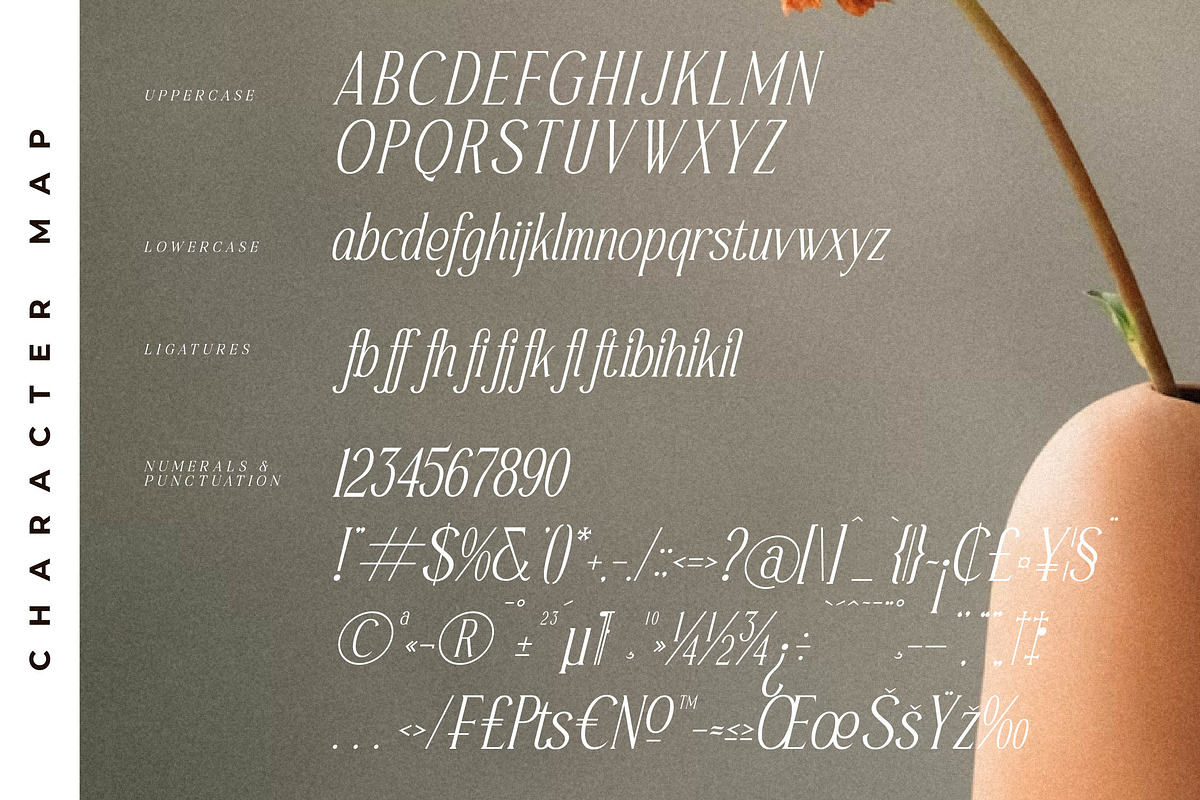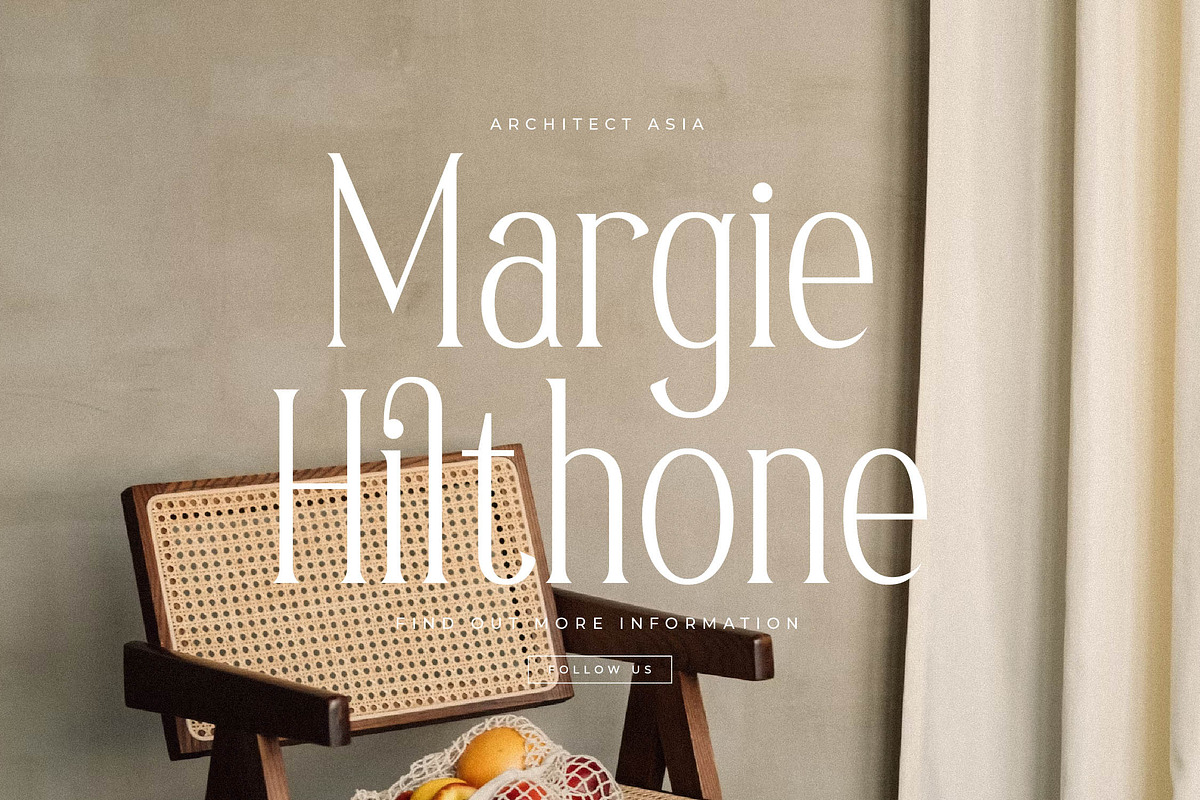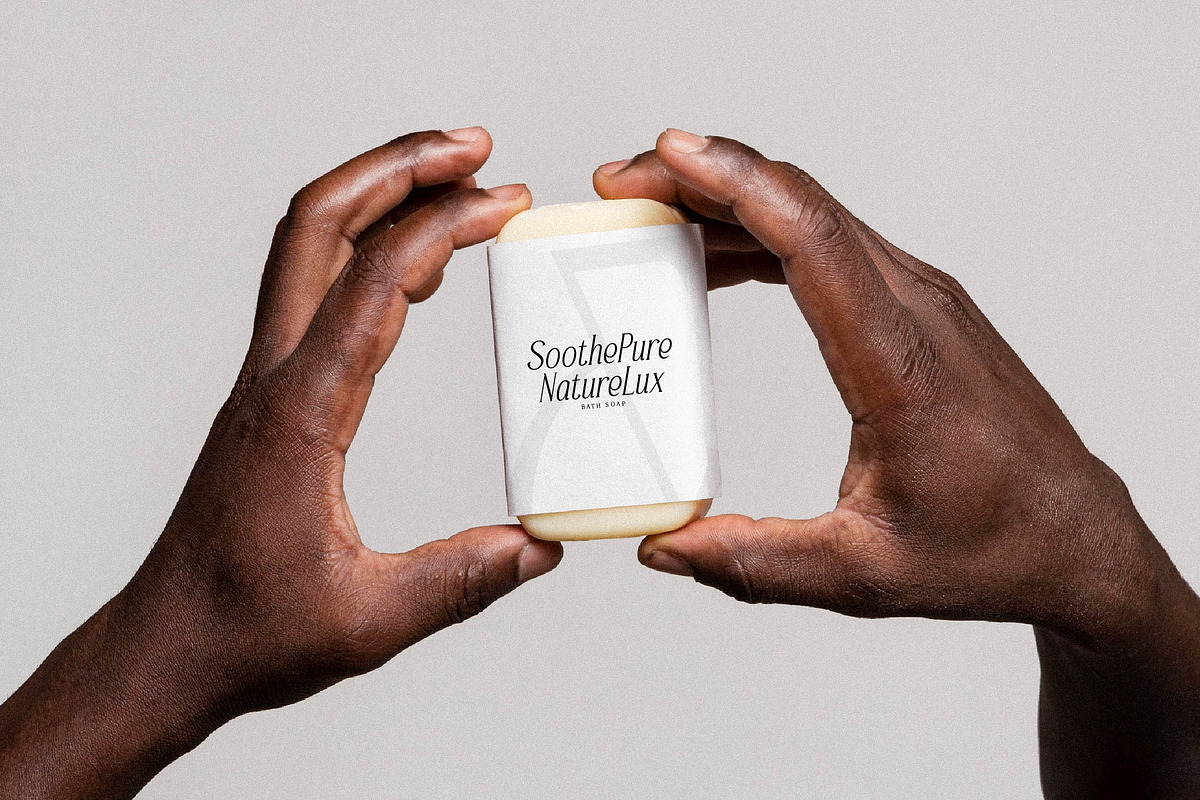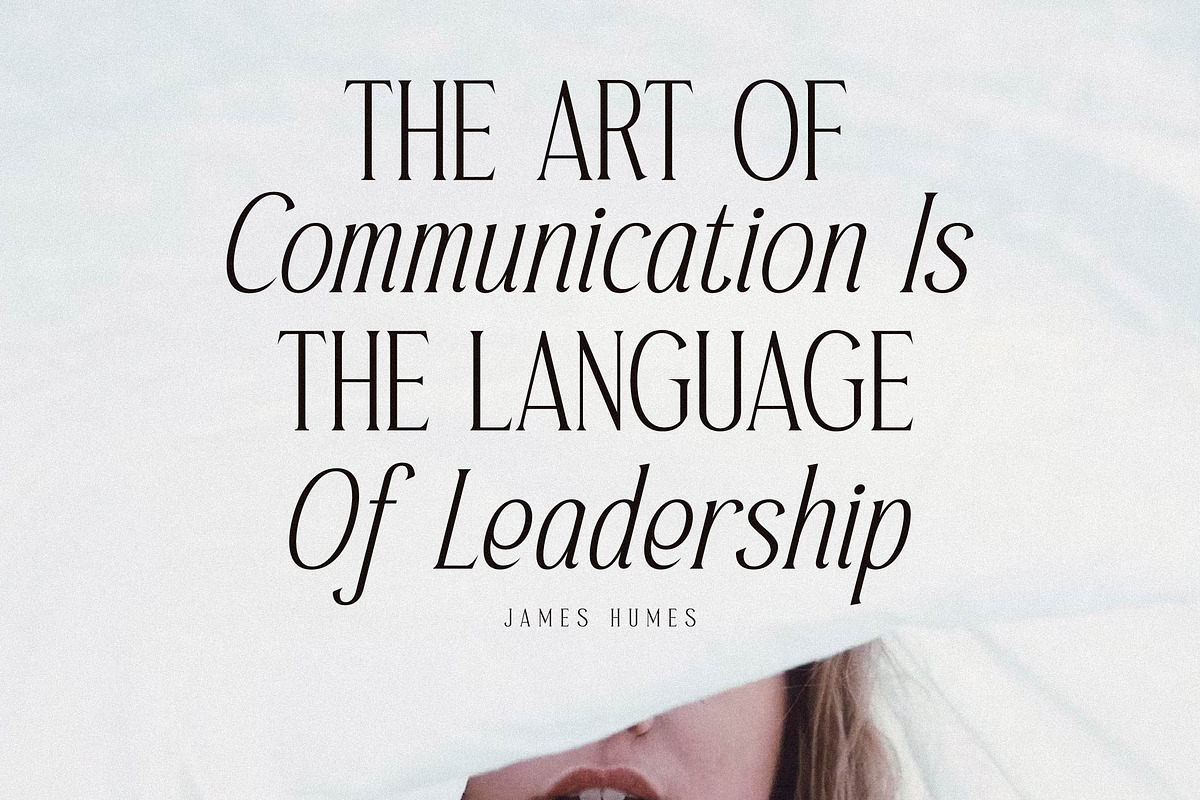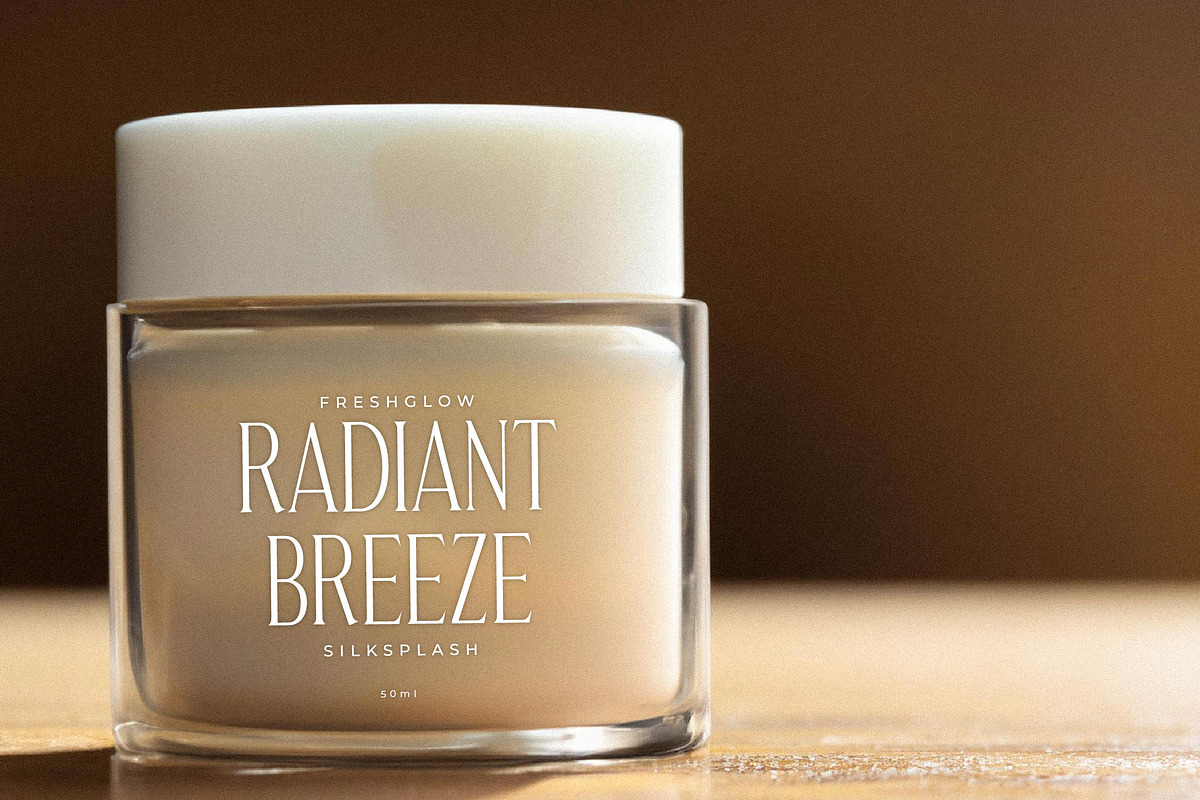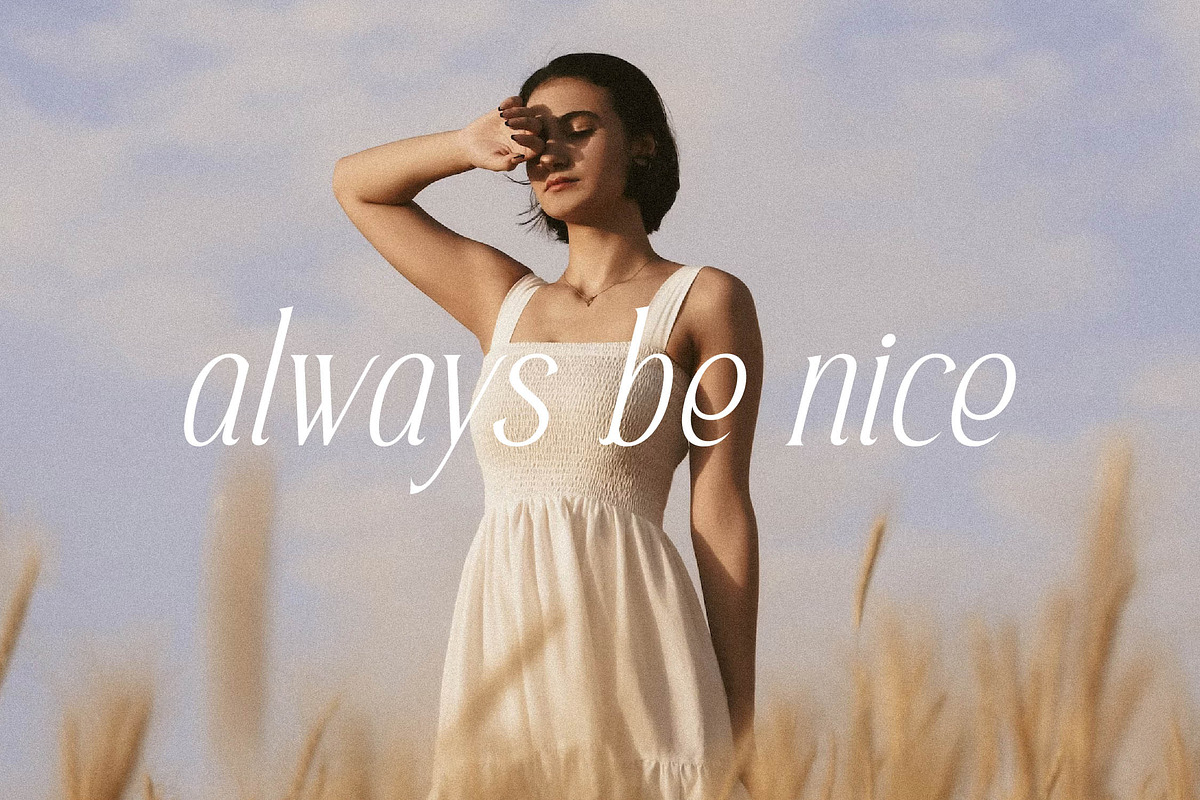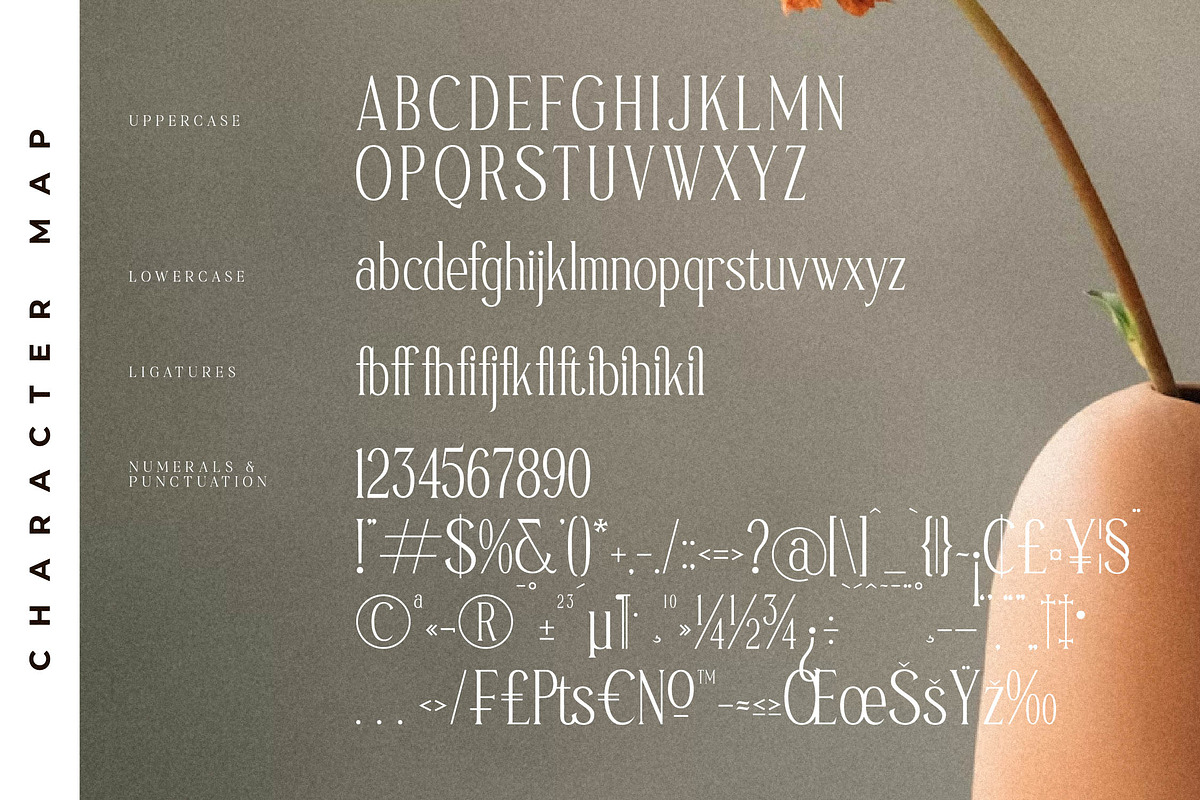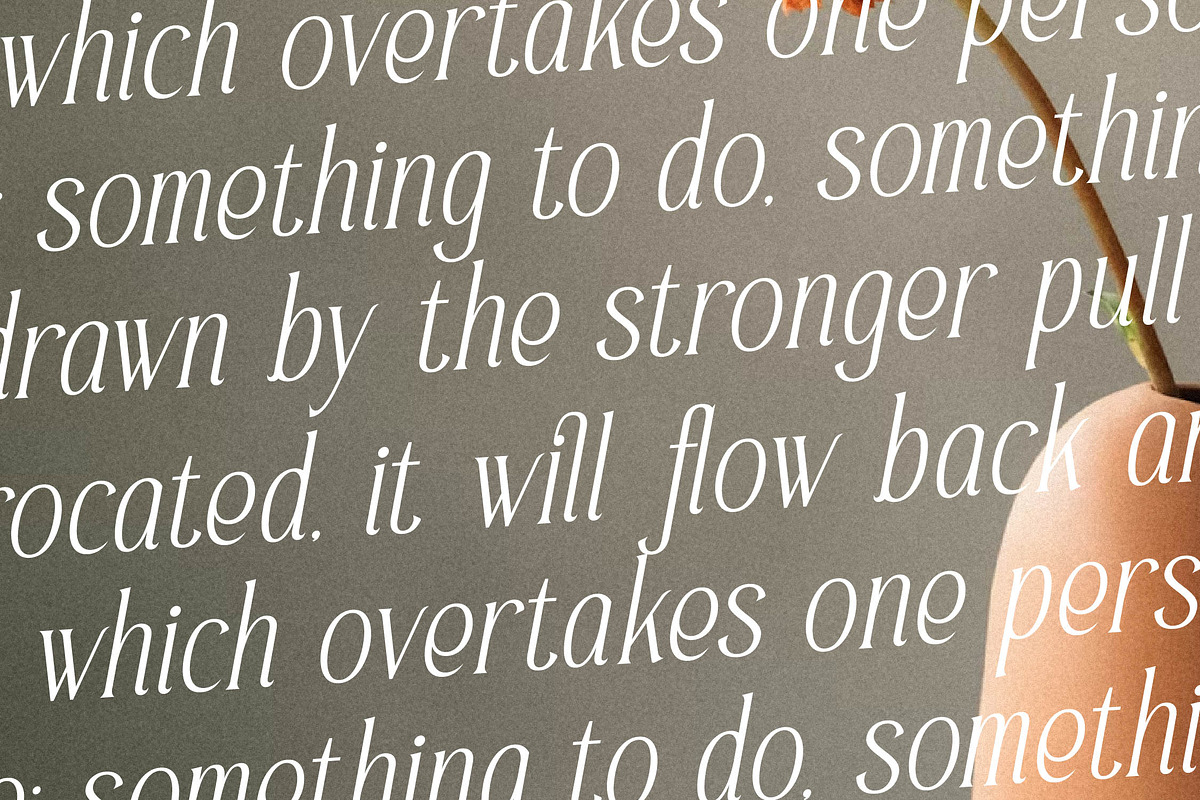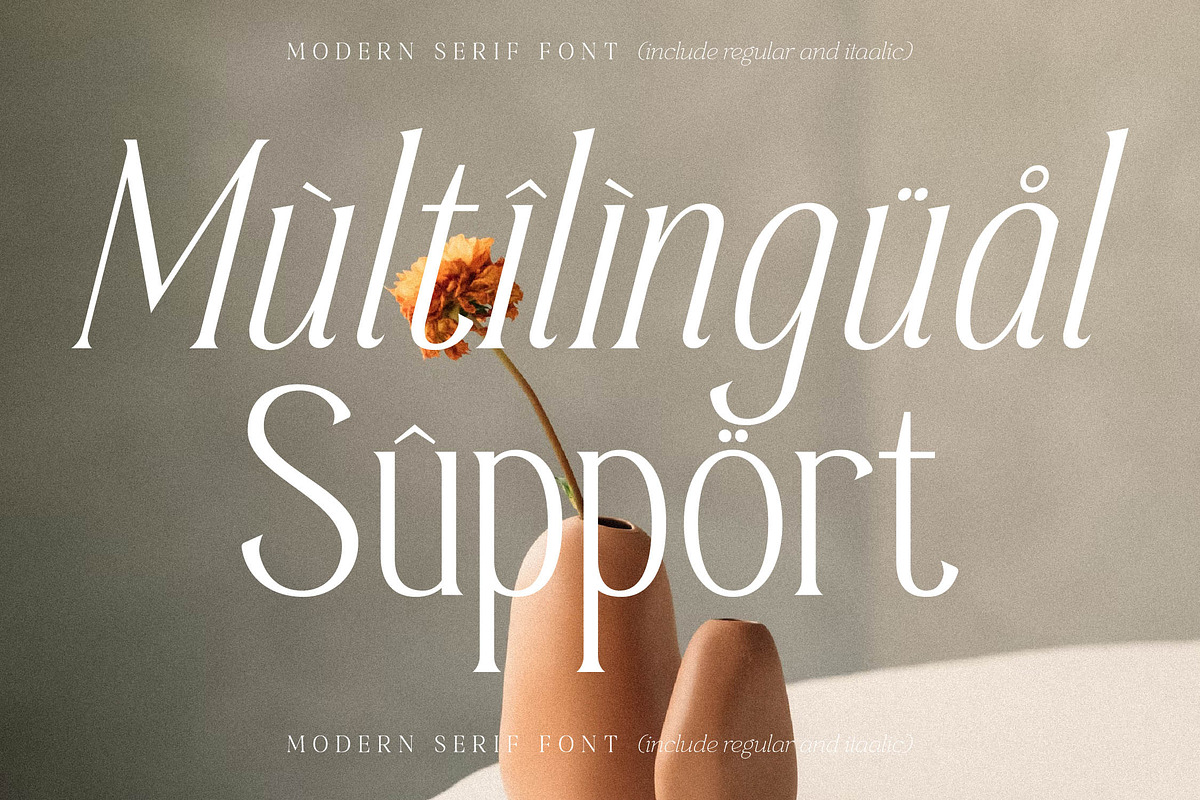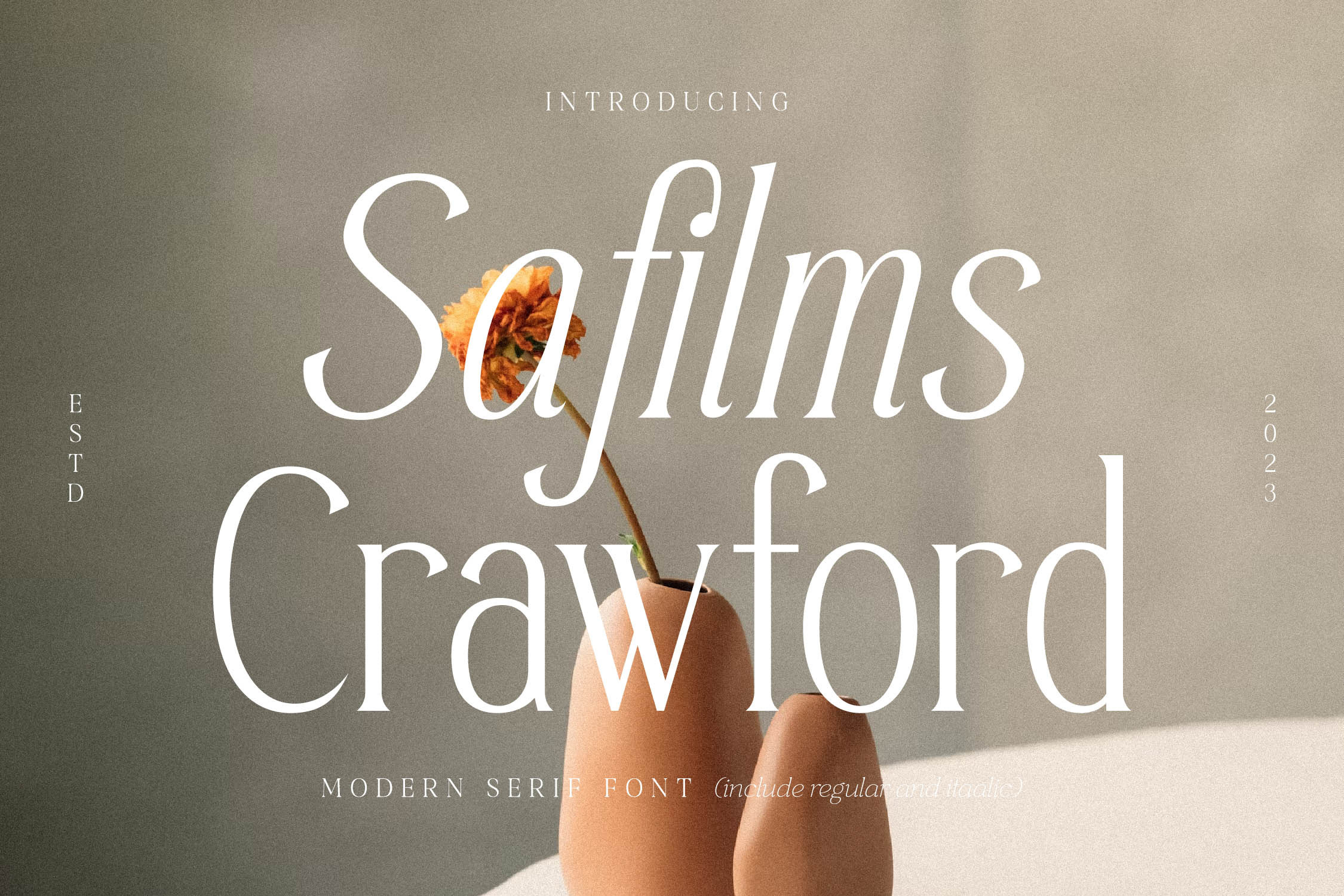
Safilms Crawford Modern Serif Font
Proudly present Safilms Crawford Typeface , created by Storytype, A serif modern and classic typeface that has own unique style & modern look. This typeface is perfect for an elegant & luxury logo, book or movie title design, fashion brand, magazine, clothes, lettering, quotes, and so much more.